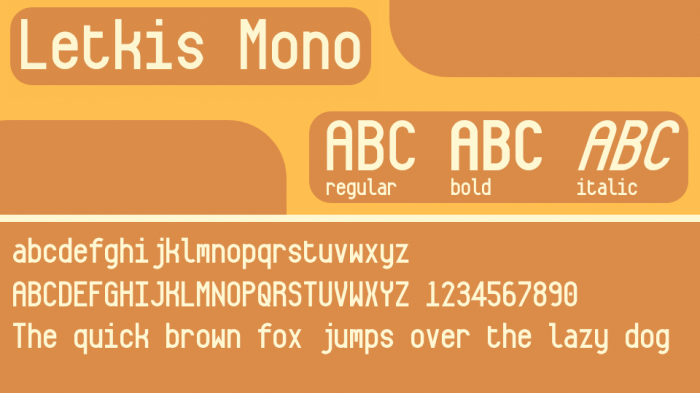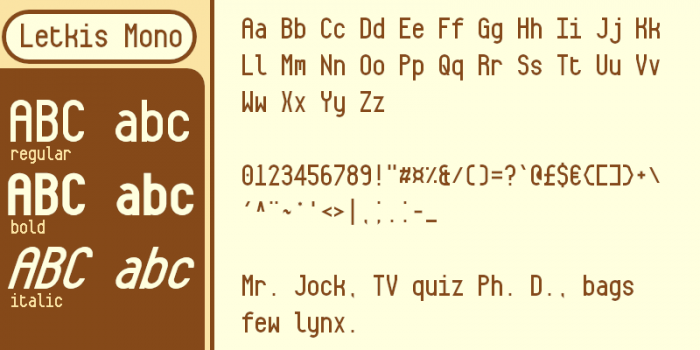
Fixed the comma and the upside-down question mark being mirrored (oops)
the opening question mark/exclamation mark {¿¡} shoukd be descending (some fonts don't idk why) as this
I modified the 'f' a little, so the sample is now outdated. (...again.)
Modified the 'l' a little and added some more letters
Letkis Monoby FinnishGameFan